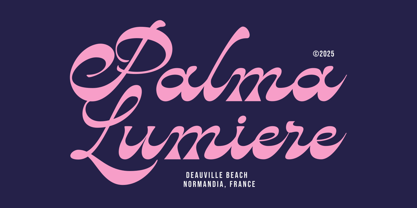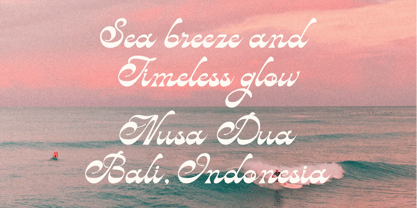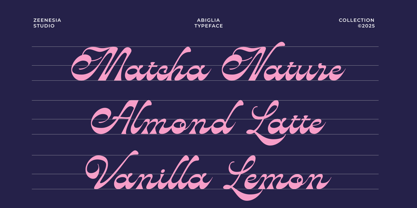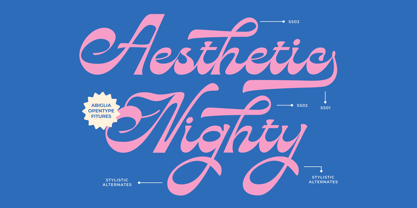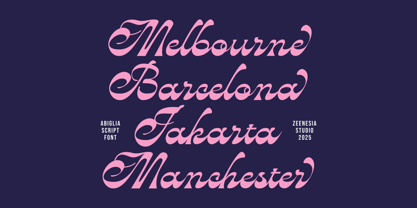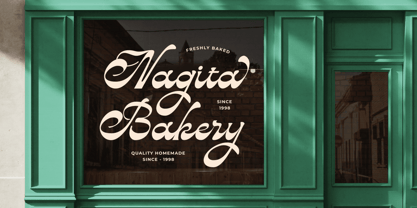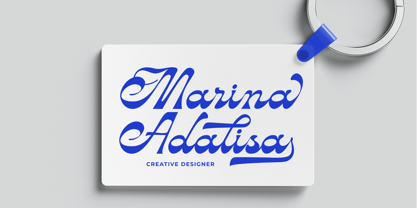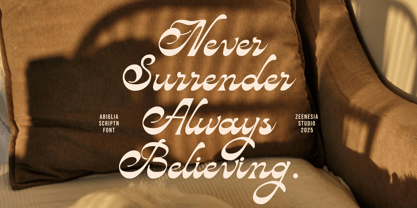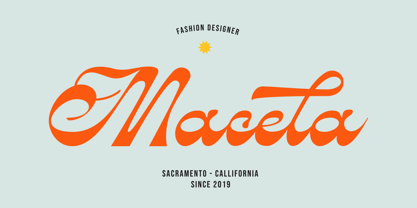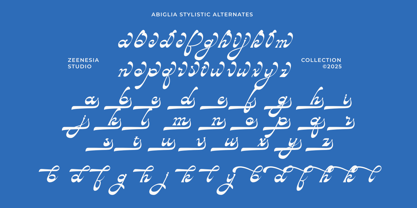
Abiglia
by Zeenesia Studio
The Abiglia Font Family was designed by Doni Purwoko and published by Zeenesia Studio. Abiglia contains 1 styles. More about this family
Abiglia is a hand-drawn script font that combines elegance and playfulness in perfect harmony. With flowing curves and bold strokes, it captures the beauty of handcrafted lettering while keeping a modern and artistic look.
Equipped with stylistic alternates, Abiglia gives you the freedom to explore different letter variations, making your designs more expressive and unique. It’s a versatile font, ideal for branding, logos, packaging, wedding invitations, quotes, posters, and social media graphics.
Designers: Doni Purwoko
Foundry: Zeenesia Studio